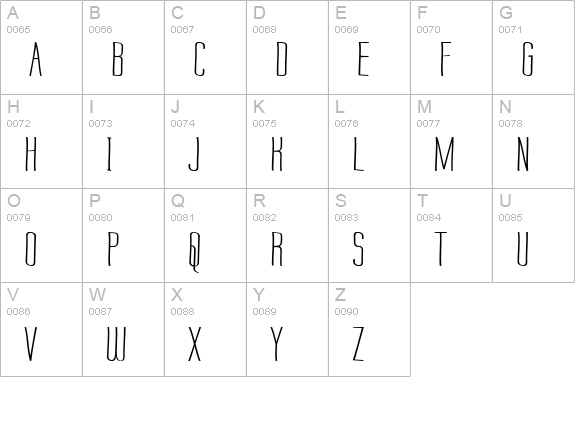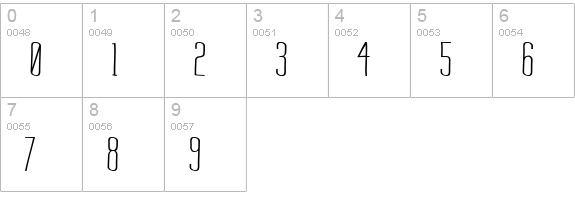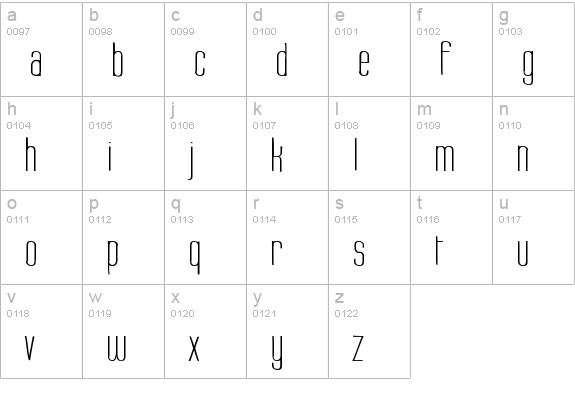
Introducing Labtop Warp 2 Font, a mesmerizing display typeface that exudes a sense of dynamism and modernity. With its unique warp effect, this font adds a futuristic touch to any design project, making it perfect for sci-fi themes, gaming graphics, and tech-related branding. Labtop Warp 2 Font is available for free download at FontsMarket.com, making it a valuable addition to any designer's toolkit. Its sleek lines and bold presence make it stand out in headlines, posters, and digital art pieces, grabbing the viewer's attention and leaving a lasting impression. Whether you're designing a cutting-edge website, creating eye-catching social media posts, or crafting innovative print materials, Labtop Warp 2 Font is sure to elevate your work to the next level. Embrace the future of typography with this versatile and impactful font that is as powerful as it is visually striking. Download it now and unleash your creativity with Labtop Warp 2 Font.